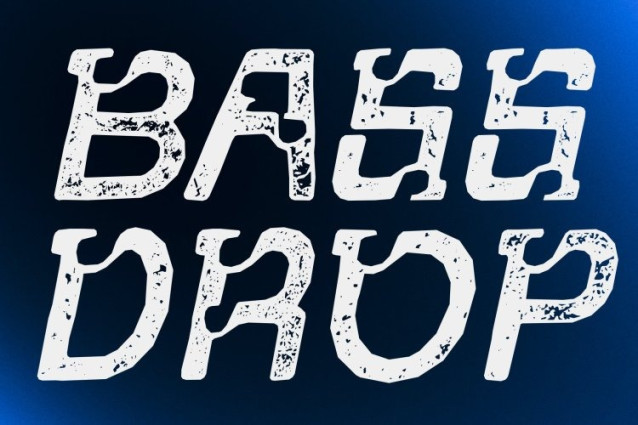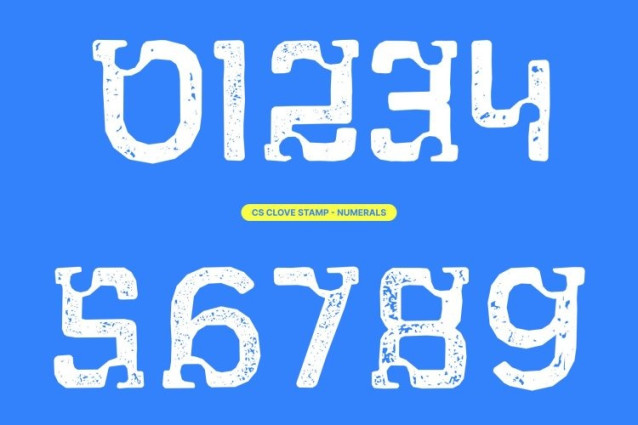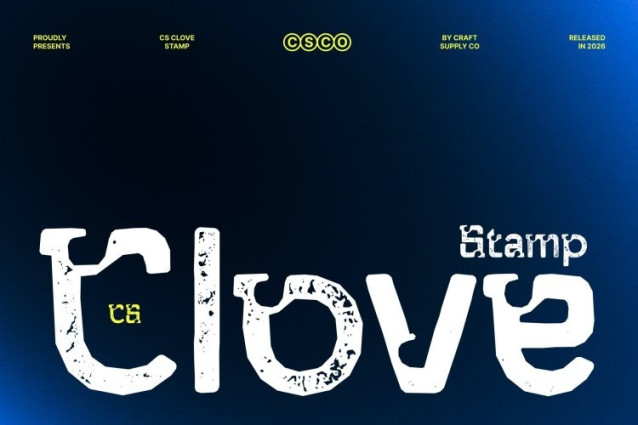
CS Clove Stamp Font
CS Clove Stamp Font – This is a modern display font defined by its unique decorative shapes and expressive letterforms. Its unconventional design introduces a creative and innovative edge, making it perfect for projects that seek originality and visual distinction. Enhanced with a stamp effect, the font gains a textured, slightly distressed finish that adds depth and a handcrafted, vintage-inspired charm.
Ornamental Forms with Bold Visual Impact
The font’s distinctive details and decorative elements create a strong visual presence that immediately captures attention. The stamp texture enriches these forms with subtle ink variations and worn edges, adding an organic, tactile quality that balances its modern structure with artistic warmth.
Creative Expression with Contemporary Style
This font blends modern elegance with imaginative design. Its ornamental character allows designers to explore bold compositions while maintaining a refined aesthetic. The textured finish enhances its personality, making every word feel expressive and visually engaging.
Perfect for Branding, Posters, and Creative Media
Ideal for branding, posters, web design, marketing materials, and artistic layouts, delivers a memorable and impactful typographic voice. Its fusion of decorative innovation and vintage stamp texture ensures your designs stand out with creativity, elegance, and a distinctive visual identity.